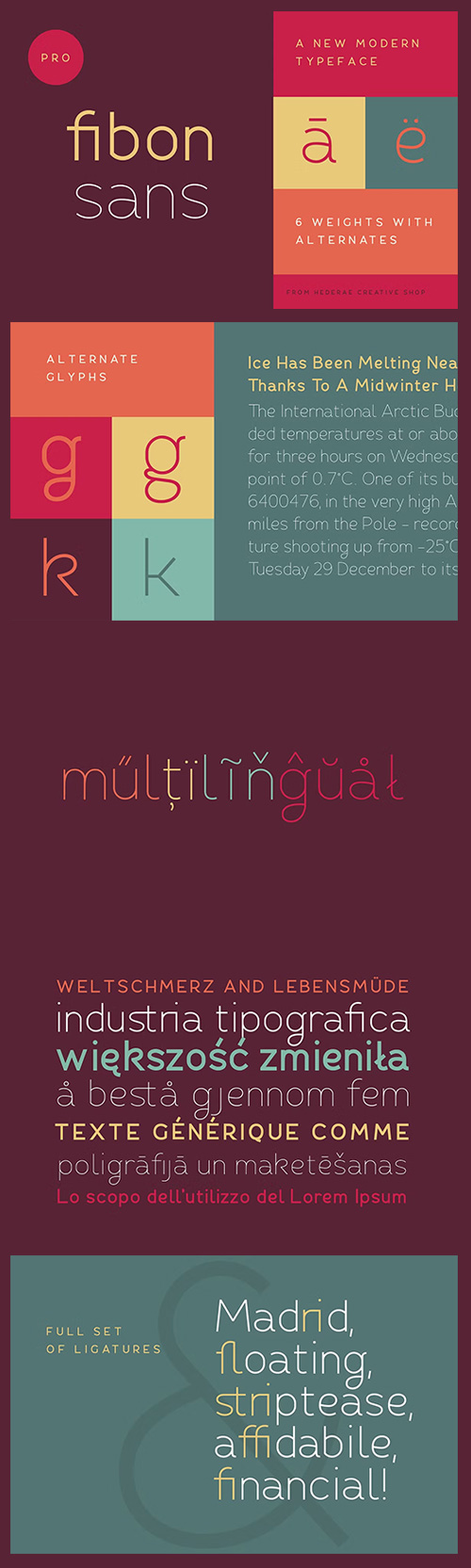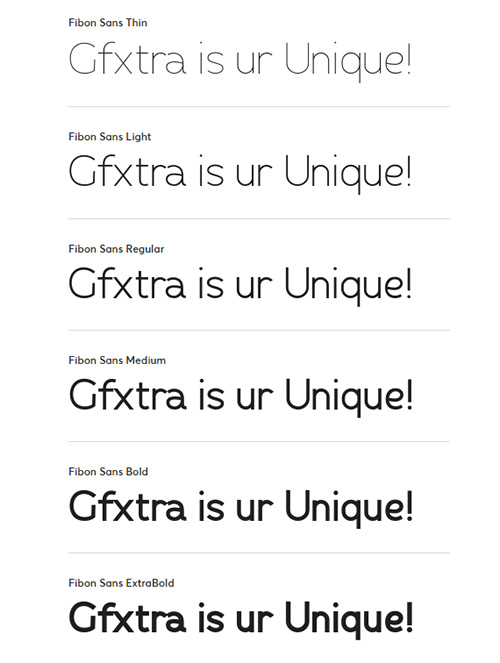
- It is a balanced, low contrast, geometric, highly legible typeface very well suited for any display and text use. Its curves make it a dynamic typeface when composing a text, ideal for those who want to add modern touch to their compositions. Fibon Sans is an excellent choice for fashion magazines, logotypes and shops.